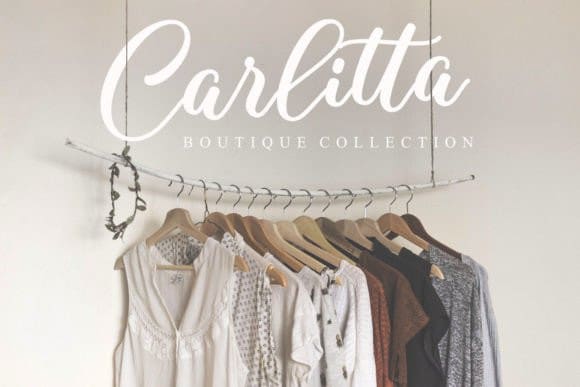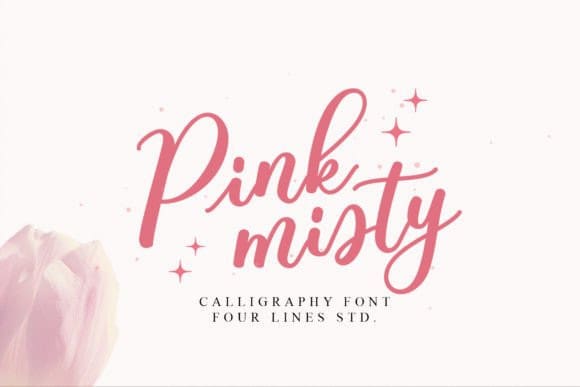
Pink Misty Font
Pink Misty Font is a bold-lettered, lovely, and fashionable script font. Fall in love with its incredibly versatile style and use it to create spectacular designs!